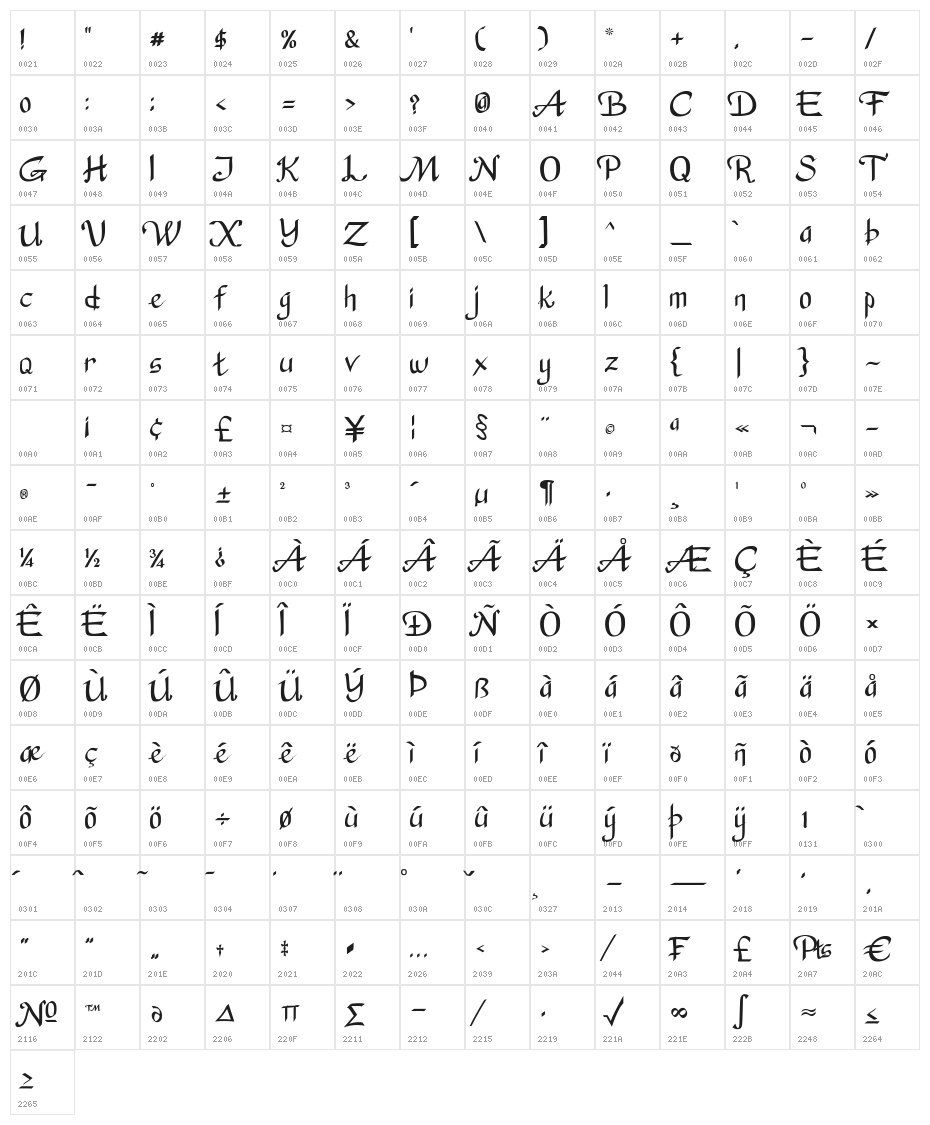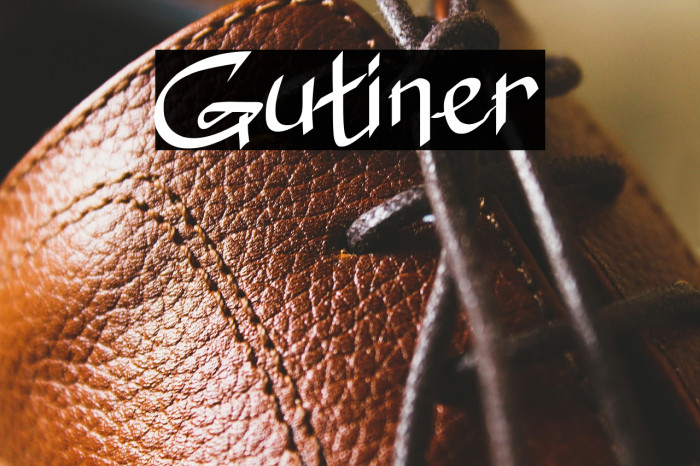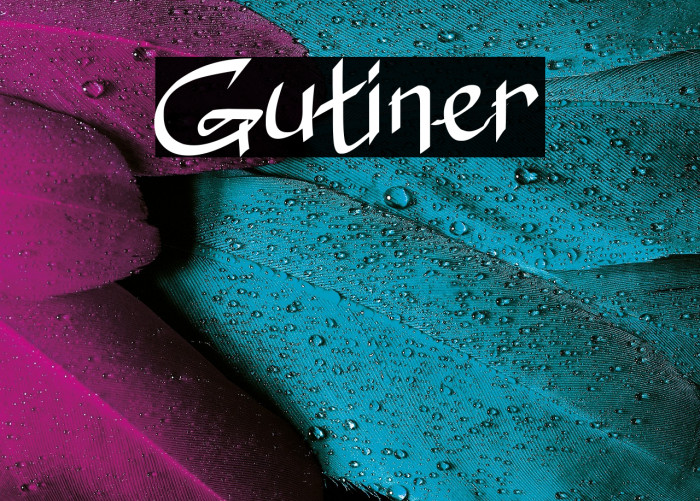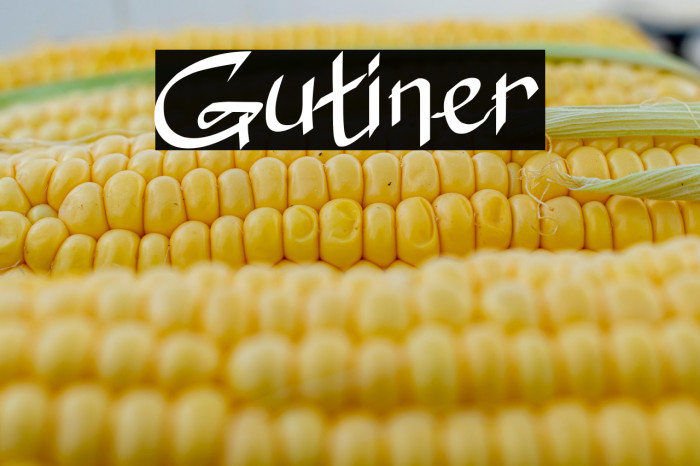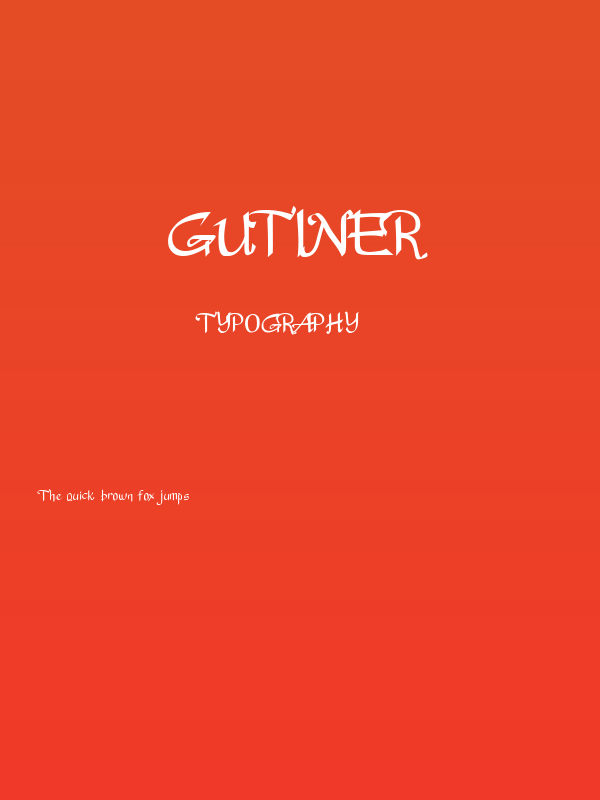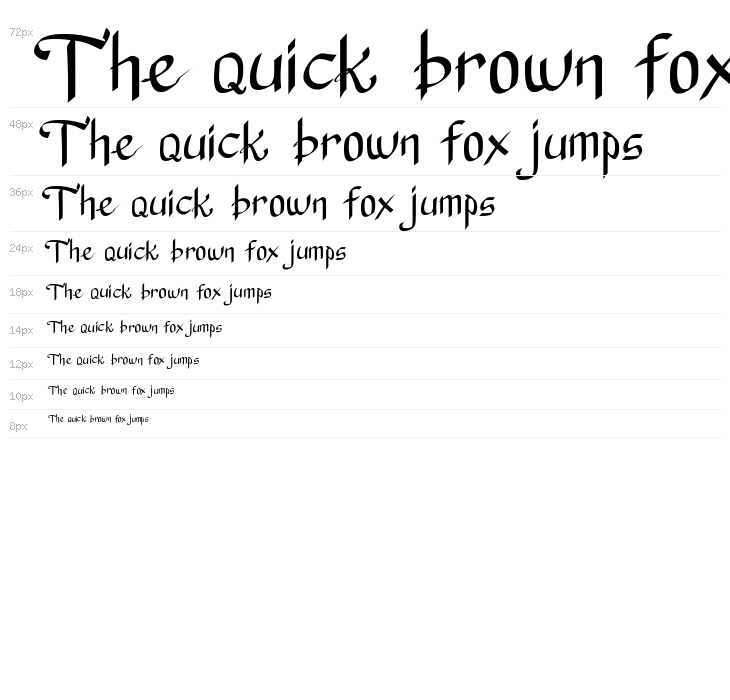
Gutiner Font
Gutiner Description
This font features a distinctive and artistic style, characterized by its sharp, angular strokes and a calligraphic influence. The uppercase letters have a dramatic flair with exaggerated curves and pointed edges, giving them a dynamic and bold appearance. The lowercase letters maintain a consistent style, with a slightly more restrained yet still expressive form. The numerals and special characters follow the same design principles, ensuring a cohesive look across all glyphs. The overall aesthetic is reminiscent of medieval or gothic script, making it suitable for projects that require a touch of historical or fantasy elements.
A bold, calligraphic font with sharp, angular strokes and a gothic influence from Uncategorized fonts.
- Proposed Projects: Ideal for fantasy book covers, medieval-themed event posters, or historical branding materials.